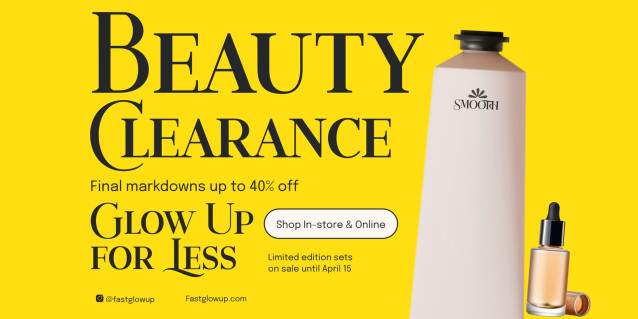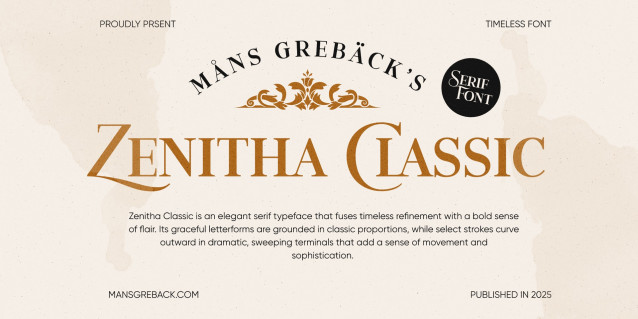
Zenitha Classic Font
Zenitha Classic Font is an elegant serif typeface that fuses timeless refinement with a bold sense of flair. Its graceful letterforms are grounded in classic proportions, while select strokes curve outward in dramatic, sweeping terminals that add a sense of movement and sophistication. The result is a design that balances authority with artistry, making each word appear deliberate and memorable.
The contrast between its poised upright stance and the dynamic, extended flourishes creates a typeface that feels both traditional and inventive. Zenitha Classic maintains a confident, dignified voice that lends distinction to any composition.
Designed by Mans Greback, a type designer known for creating lettering that combines artistic expression with typographic precision.